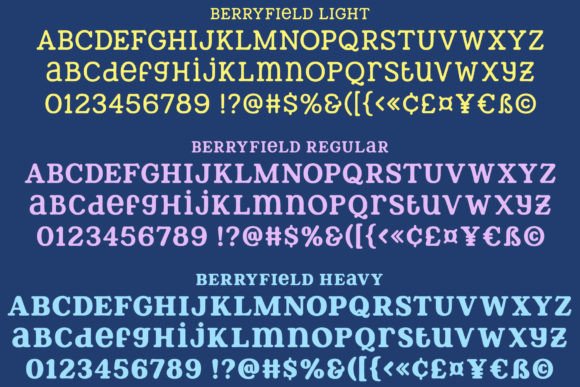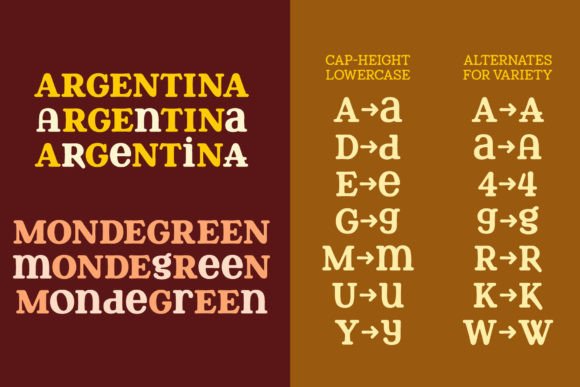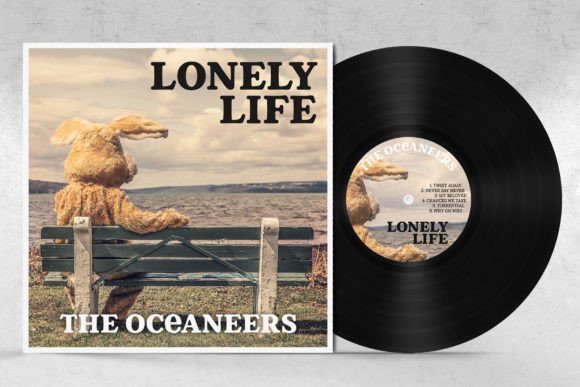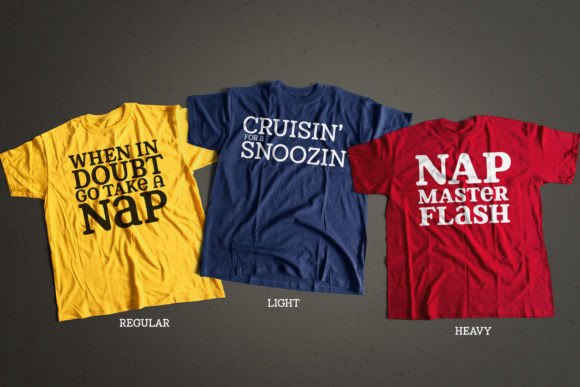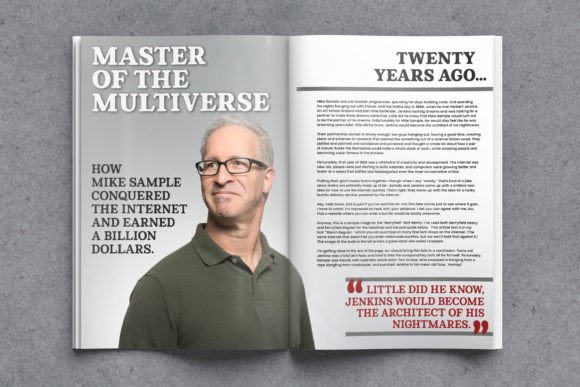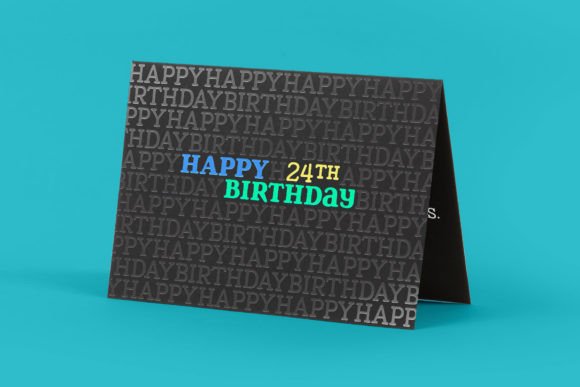
Berryfield Font: A Geometric Marvel with a Touch of Elegance
In the world of typography, innovation and creativity are essential for standing out in a crowded field. Berryfield Font is a shining example of this, born out of an experiment to create a font entirely from geometric shapes. This unique approach has resulted in a versatile and visually appealing typeface that is sure to capture the attention of designers and crafters alike.
The Birth of Berryfield
Berryfield started as a humble experiment, combining a few simple shapes – circles and rectangles – to form the foundation of a new font. As the project evolved, it became clear that the possibilities were endless, with each shape giving rise to new variations and combinations. The result is a font that is both modern and distinctive, with a character set that is both extensive and eclectic.
Design Inspiration
The design of Berryfield Font draws inspiration from two seemingly disparate sources. For the uppercase letters, the style is reminiscent of classic serif fonts like Cooper, Korinna, and Goudy, evoking a sense of tradition and elegance. However, when it came to creating the lowercase set, the designer took a bold turn, looking to fun and quirky unicase fonts like Pupcat and Pharmacy for inspiration. This led to the creation of uppercase-height lowercase letters, as well as uppercase alternates, adding a playful touch to the font.
A Family of Fonts
One of the standout features of Berryfield Font is its versatility. The initial regular version was so well-received that the designer went on to create a lighter version, reminiscent of a typewriter font, and a heavier version, offering even more variety for users. This family of fonts provides a range of options for designers, from subtle and understated to bold and attention-grabbing.
Extensive Character Set
Each font in the Berryfield family boasts an impressive character set, with over 520 characters, including more than 300 extended Latin characters for comprehensive language support. This ensures that the font can be used for a wide range of projects, from simple designs to complex, multilingual endeavors. Additionally, the font features a number of alternate letters, superscript ordinals (ST, ND, RD, and TH), and PUA-encoded characters for easy access.
What Makes Berryfield Special
So, what sets Berryfield Font apart from other typefaces on the market? Here are a few key features that make it an attractive choice for designers and crafters:
- Geometric construction: Berryfield’s unique construction from basic shapes gives it a distinctive look that is both modern and versatile.
- Extensive character set: With over 520 characters, including extended Latin characters and alternate letters, Berryfield Font offers a comprehensive solution for a wide range of design projects.
- Variety of weights: The font family includes regular, light, and heavy versions, providing users with a range of options for different design applications.
- PUA-encoded characters: Easy access to superscript ordinals and other special characters makes designing with Berryfield Font a breeze.
Using Berryfield in Design Projects
Berryfield Font is an excellent choice for a variety of design projects, from branding and advertising to packaging and digital media. Its geometric construction and elegant lines make it suitable for:
- Logos and wordmarks: Berryfield’s unique character makes it an excellent choice for creating memorable logos and wordmarks.
- Headings and titles: The font’s bold and light versions make it perfect for use in headings and titles, adding visual interest and hierarchy to any design.
- Body text: Berryfield’s readability and extensive character set make it a viable option for body text, particularly in designs where a touch of personality is desired.
Berryfield Font is a true marvel of modern typography, offering a unique blend of geometric simplicity and elegant lines. With its extensive character set, variety of weights, and PUA-encoded characters, it is an excellent choice for designers and crafters looking to add a touch of sophistication and whimsy to their projects. Whether used for logos, headings, or body text, Berryfield Font is sure to make a lasting impression.